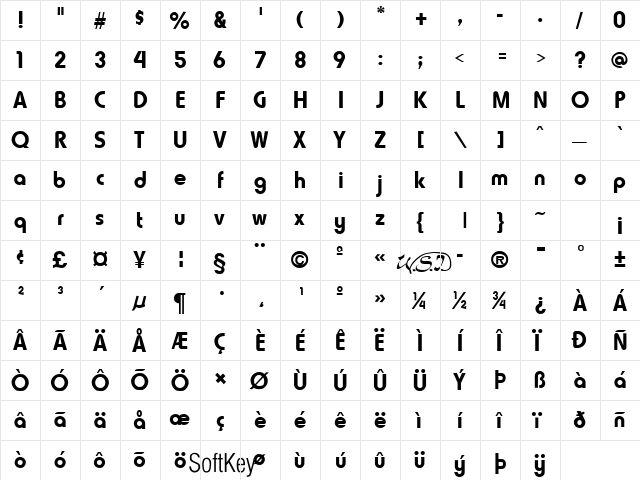
Hammer Fat Regular
Design Context for Hammer Fat Typeface
Hammer Fat takes a measured approach to typography — its balanced proportions and neutral character make it a reliable workhorse for both digital and print work.
Pro Tip: Use Hammer Fat in both headline and body roles to test its range before committing to a single application.